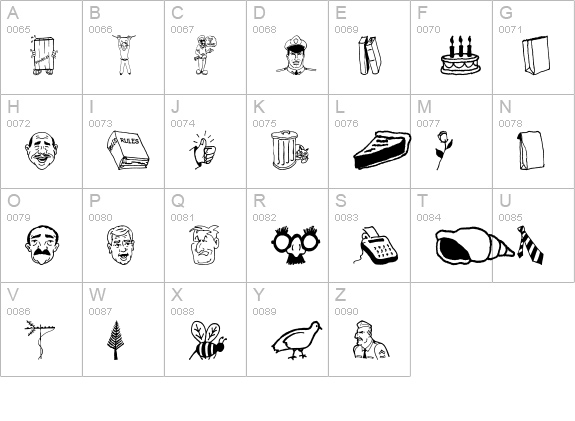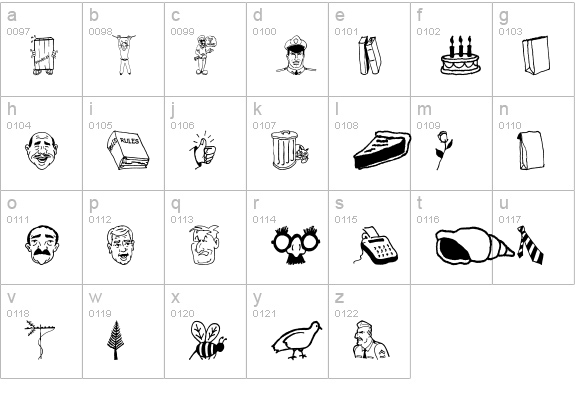
Dingfont 100 JL Font Details
Dingfont 100 JL is a whimsical and playful font that will add a touch of creativity to your design projects. With its unique and intricate characters, this font is perfect for adding decorative elements or emphasizing specific text in your designs. The free Dingfont 100 JL font is freely available to download at FontsMarket.com, making it accessible to all designers looking to add a fun and distinctive touch to their work. Whether you're working on a poster, invitation, or social media graphic, Dingfont 100 JL is sure to make your text stand out and leave a lasting impression. Download this charming font now and let your creativity soar!